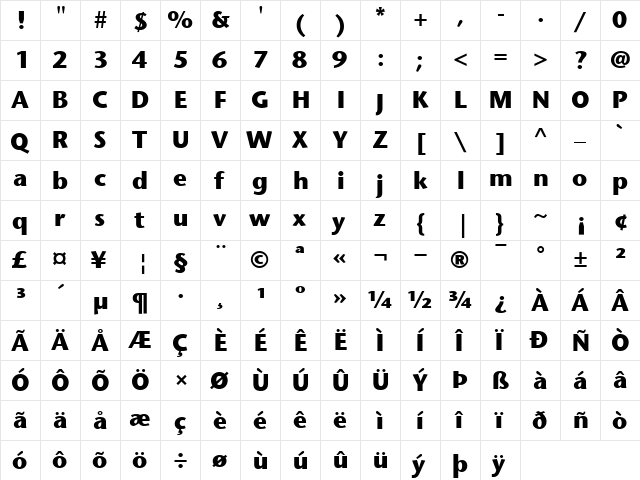
ITCStoneSans Bold Font Preview
ITCStoneSans Bold
Design Context for ITCStoneSans Typeface
ITCStoneSans takes a measured approach to typography — its balanced proportions and neutral character make it a reliable workhorse for both digital and print work. Its bold stroke weight gives it real presence on the page.
Pro Tip: Pair ITCStoneSans with a font of contrasting weight or personality to build a more expressive typographic hierarchy.